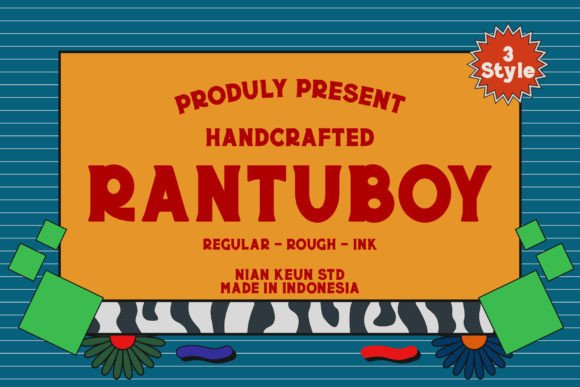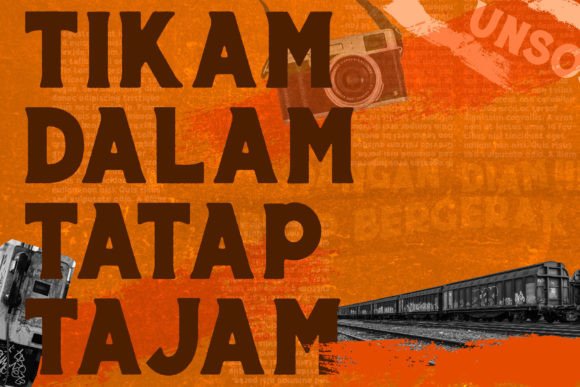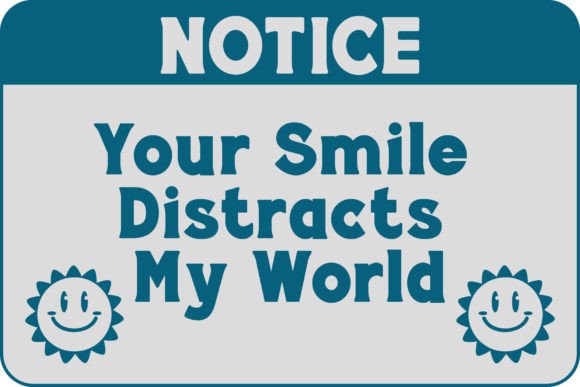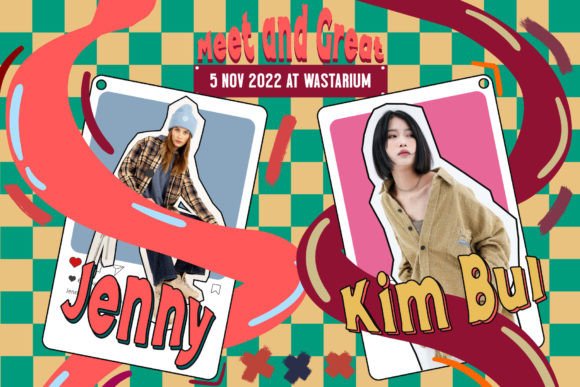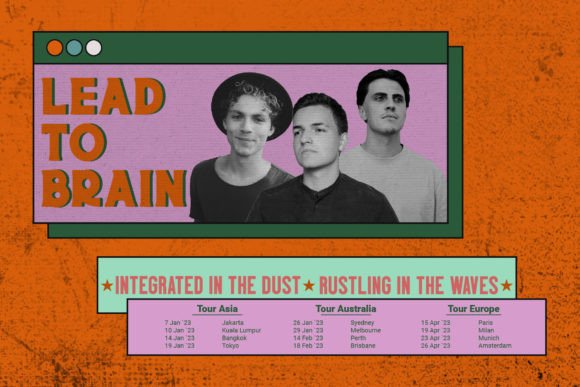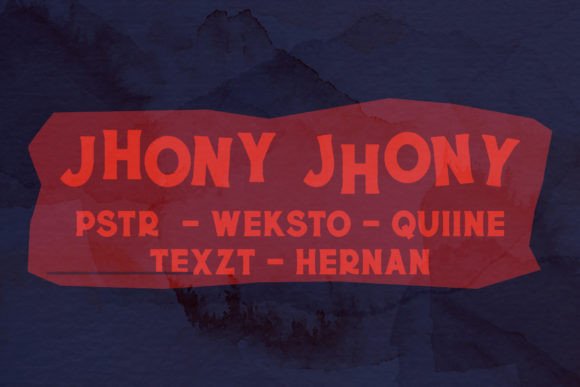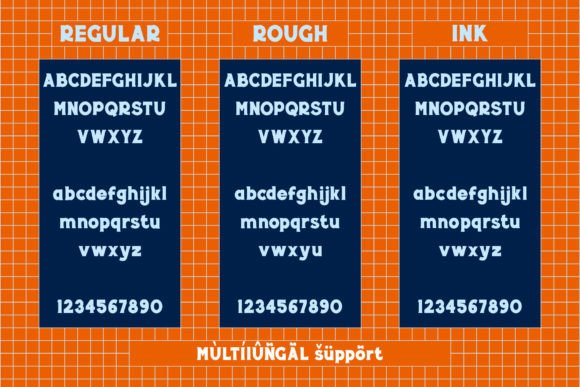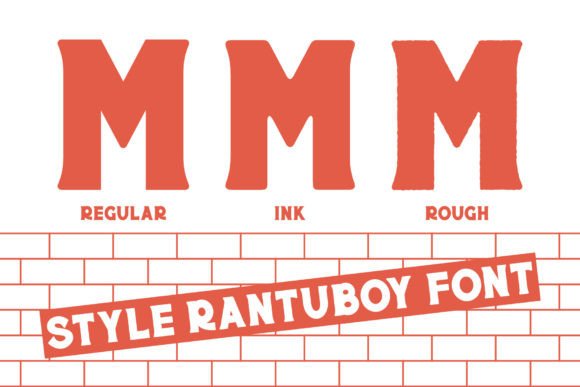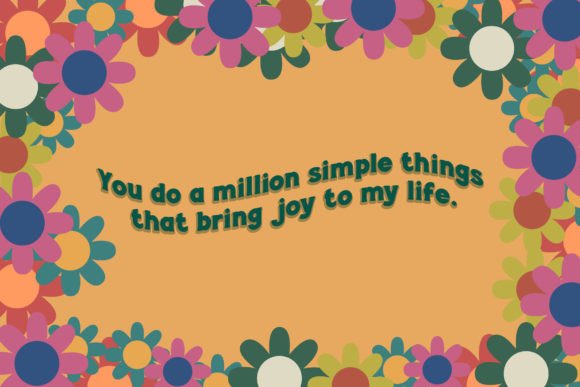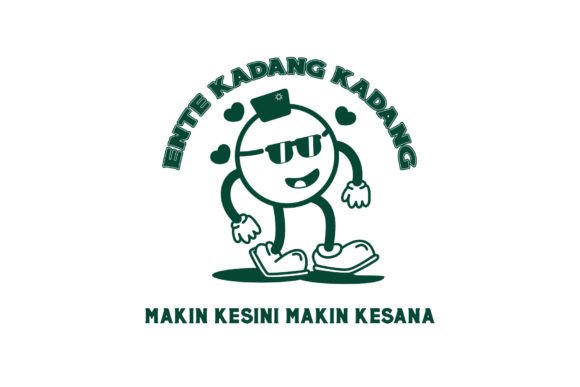
Rantuboy
Rantuboy: A Fun and Retro Display Font
Rantuboy is a fun, retro-style display font that enhances any creation. This versatile typeface serves as a wonderful asset to any font library, bringing playful vintage character to various projects.
Key Features of Rantuboy
• Fun Design: Offers playful and engaging letterforms.
• Retro Style: Brings vintage character to designs.
• Display Appeal: Perfect for attention-grabbing typography.
• Versatile Application: Enhances various creative projects.
Best Uses for Rantuboy
Thanks to its distinctive characteristics, Rantuboy works especially well for:
When using Rantuboy in your designs, keep these tips in mind:
• Try it for headlines or display text to showcase its fun style.
• Use different sizes to highlight its retro features.
• Let its playful character enhance creative projects.
• Take advantage of its versatility across applications.
To sum up, Rantuboy is an excellent choice for designers seeking a fun and retro display font. Its versatility makes it perfect for enhancing any creation. Whether you’re working on vintage-inspired designs or developing playful projects, Rantuboy offers the perfect blend of fun and nostalgia.
Furthermore, Rantuboy’s distinctive design allows it to shine in contexts where both playfulness and retro appeal are key. For instance, from creative layouts to artistic typography, this font can elevate your projects with its unique style. Also, its fun yet versatile appearance works particularly well in designs that aim to make a memorable impact.
In conclusion, Rantuboy truly captures the essence of retro fun in display typography. Its ability to enhance various applications shows how well it can serve creative needs. Therefore, for those wanting to add a touch of playful nostalgia to their work, Rantuboy can transform any design with its distinctive style. Ultimately, it’s perfect for designers aiming to make a fun, retro impact across creative projects.